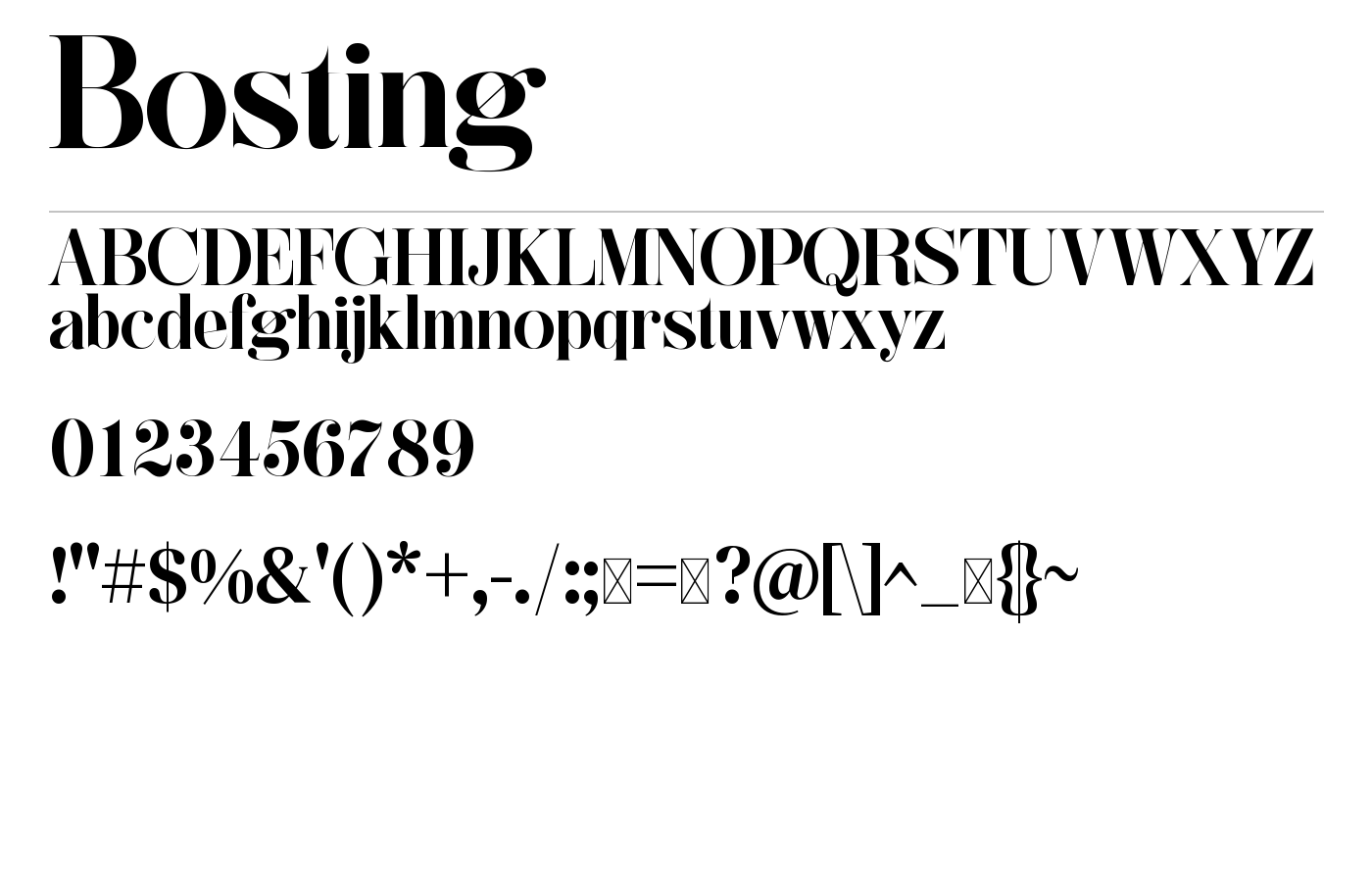
Bosting is an elegant serif font characterized by its high contrast between thick and thin strokes and distinctive bracketed serifs. With its tall, narrow letterforms and refined details like the double-story lowercase 'g' and a strikingly curved 'Q', it exudes a sophisticated, modern luxury vibe ideal for fashion, editorial headlines, and upscale branding. This font works beautifully where a stylish and commanding presence is needed, especially in logos, posters, and high-end packaging.
Bosting Font